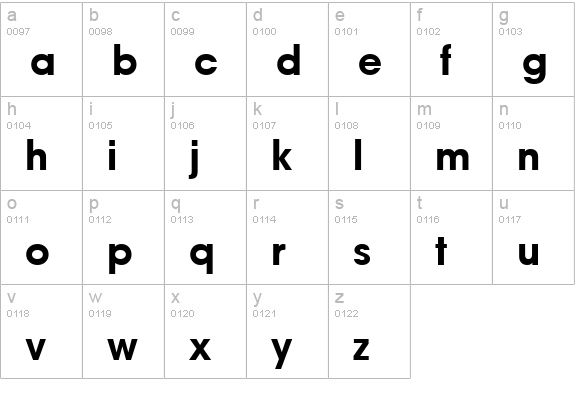
a_AvanteBs ExtraBold Font Details
a_AvanteBs ExtraBold is an extra-heavy, attention-grabbing variant in the a_AvanteBs typeface family \xE2\x80\x94 well suited to high-impact headlines, posters, and bold branding.
Introducing AvanteBs ExtraBold, a striking and powerful font that demands attention with its bold and expressive design. With its thick strokes and commanding presence, AvanteBs ExtraBold is perfect for making a statement in headlines, titles, and other impactful design elements. This font exudes confidence and strength, making it ideal for projects that require a bold and modern touch. Best of all, AvanteBs ExtraBold is available for free download at FontsMarket.com. Simply visit the website to access this eye-catching font and elevate your design projects with its bold and dynamic style. Whether you're working on posters, logos, or branding materials, AvanteBs ExtraBold is sure to leave a lasting impression with its unique and powerful aesthetic. Download AvanteBs ExtraBold today and unleash the full potential of your designs!